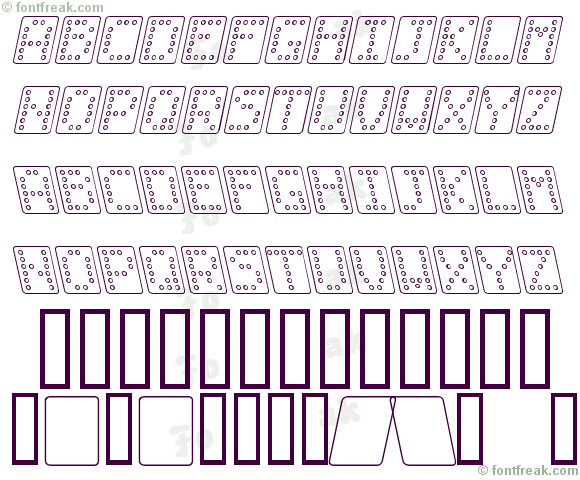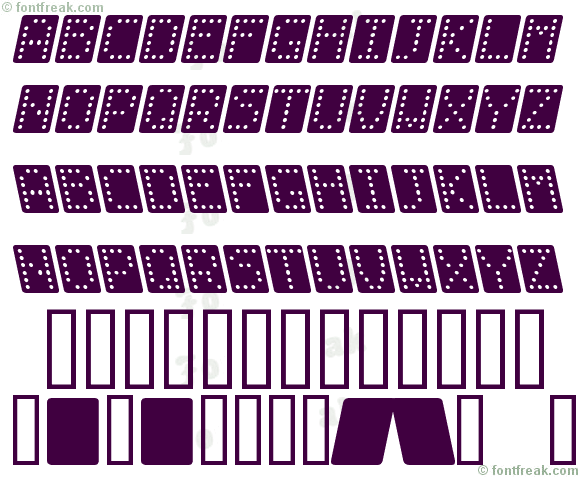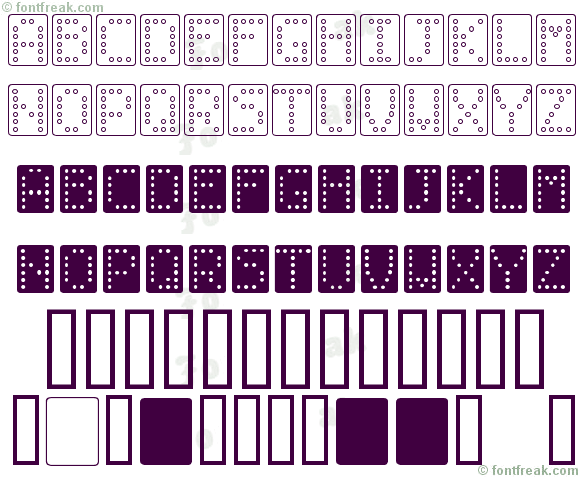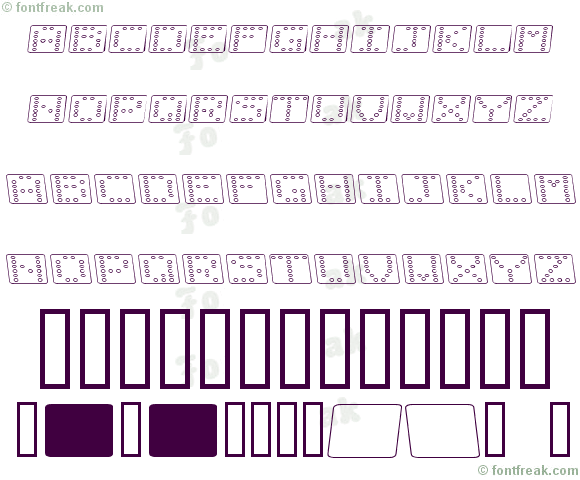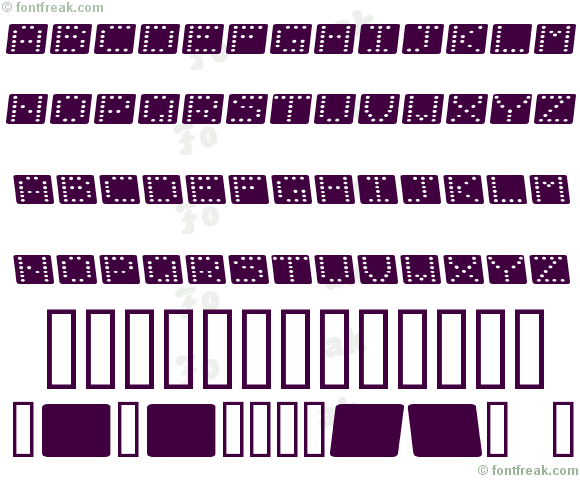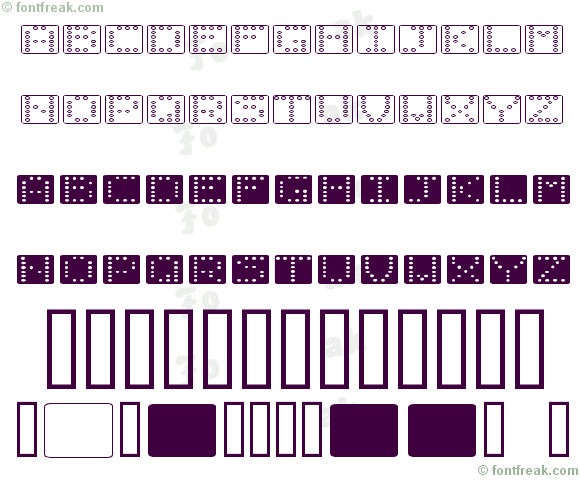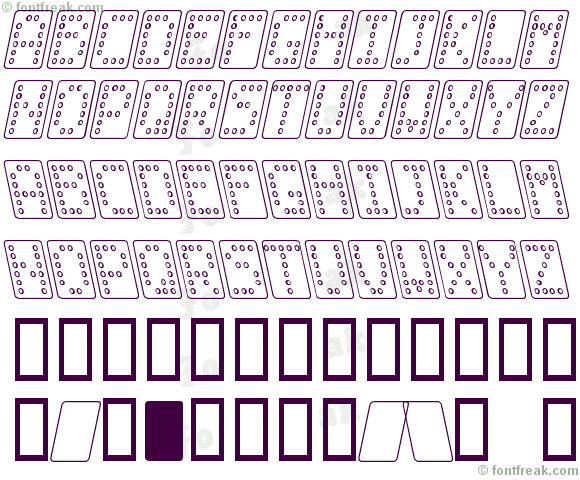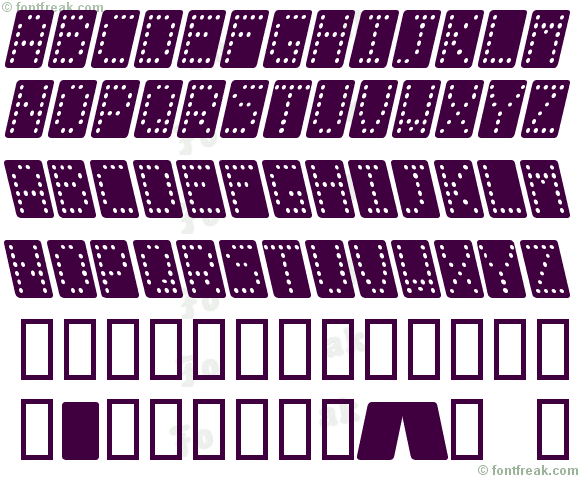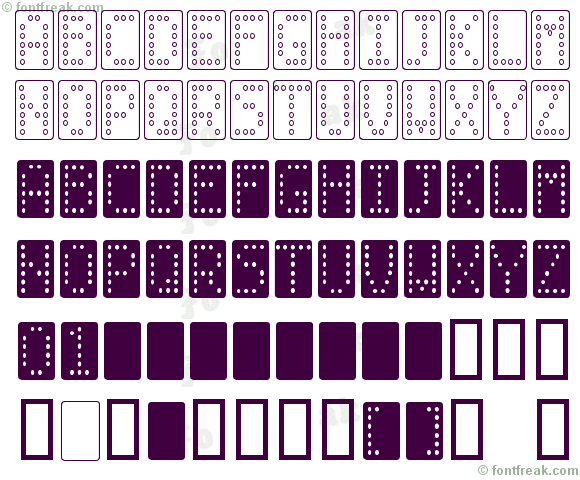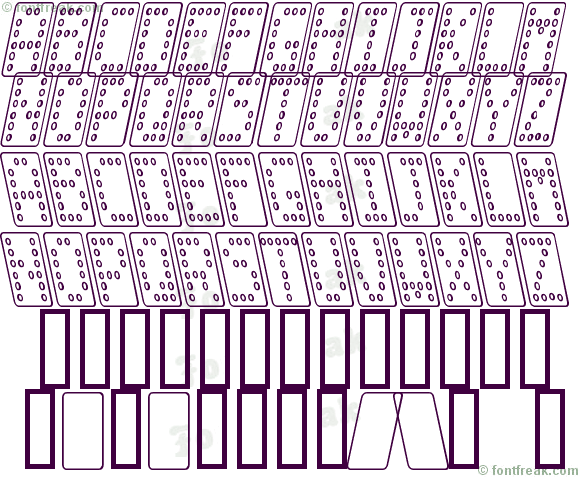
About Domino
The Domino font by Listemageren is a unique display typeface that captures attention with its playful and distinctive characteristics. Released in 1998, this freeware font features a square, bold design that is both modern and versatile. The visual style of the Domino font is marked by its strong stroke weight and minimal contrast, which creates a uniform appearance that is easy to read. The spacing is well-balanced, allowing for clear legibility even at smaller sizes. The decorative elements of the font evoke a sense of whimsy, making it particularly suitable for a variety of creative projects.
Ideal use cases for the Domino font include wedding invitations, where its charming style can add a touch of personality; movie posters, where it can convey a fun or retro vibe; restaurant menus, which benefit from its inviting feel; and promotional materials for events or products aimed at a youthful audience. This font is especially appealing to graphic designers, small business owners, and content creators looking to infuse their work with a unique flair.
What sets the Domino font apart is its ability to blend playful aesthetics with practicality. Its square shapes and bold presence make it a striking choice for both digital and print applications. Additionally, the font’s freeware licensing allows for easy accessibility, encouraging creative experimentation without financial constraints. For anyone seeking to elevate their design projects, the Domino font is an excellent choice that stands out in a crowded typographic landscape. Don’t miss the opportunity to enhance your work with this distinctive typeface; the Domino font free download is just a click away.